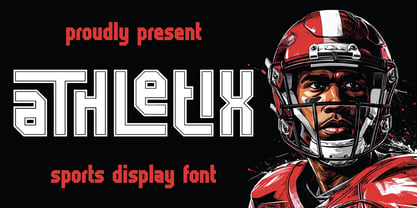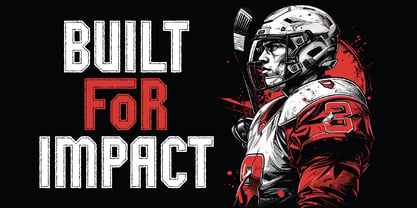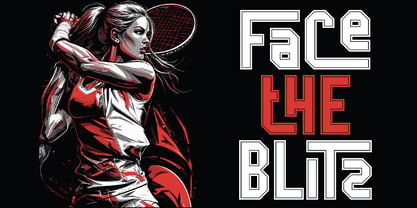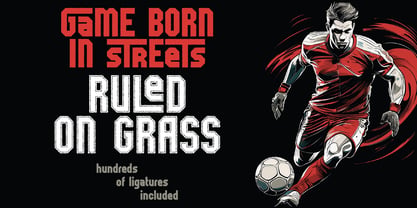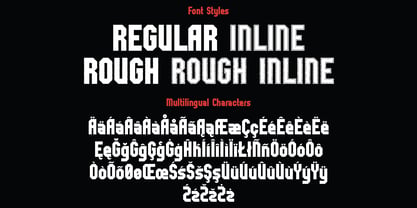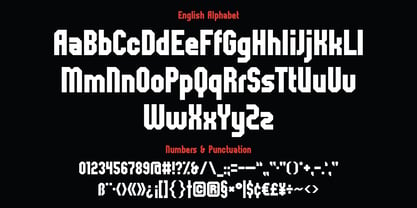
Athletix
by Vozzy
The Athletix Font Family was designed by Oleg Voznyy and published by Vozzy. Athletix contains 4 styles and family package options. More about this family
Introducing "Athletix," a distinctive font designed specifically for headlines, accent inscriptions, and capturing attention. This versatile typeface includes a wide array of additional characters, punctuation marks, and multilingual characters, ensuring it meets diverse design needs. With a generous selection of standard ligatures, Athletix enhances readability and visual appeal (ensure your software supports this OpenType feature). Perfect for branding, web design, and editorial projects, this font will elevate your stunning designs to new heights!
Designers: Oleg Voznyy
Foundry: Vozzy